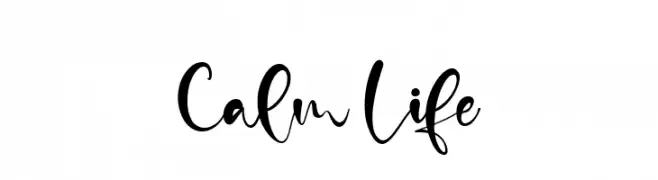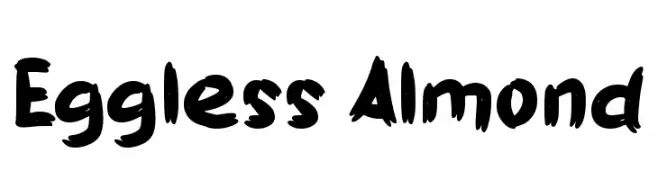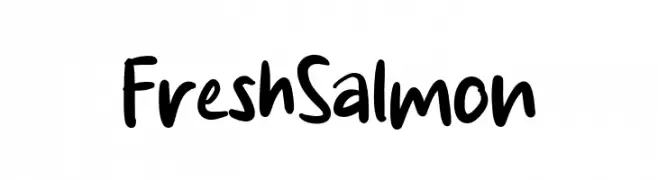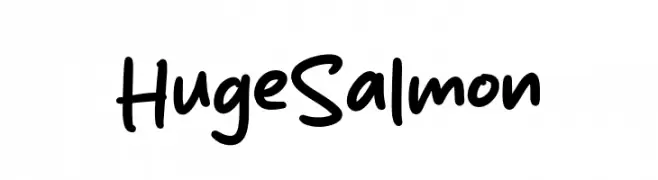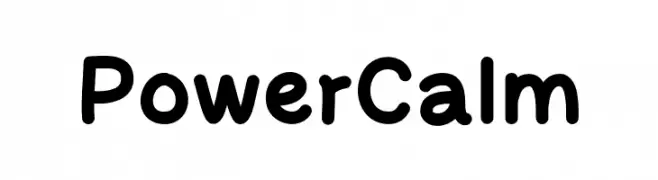
A flowing, cursive font with elegant, interconnected strokes.
A bold, decorative font with geometric and Sanskrit-inspired elements.
A bold, geometric font with a modern and elegant style.
A playful, hand-drawn font with a whimsical, cartoon-like style.
A playful, decorative font with bold, swirling elements and a whimsical style.
A bold, brush-style font with a hand-drawn, artistic look.
A bold, playful font with rounded, bubble-like characters ideal for creative projects.
A playful, handwritten font with a casual and friendly appearance.
A playful, rounded font with bold, uniform strokes and a friendly appearance.
A bold, playful handwritten font with a casual and friendly style.